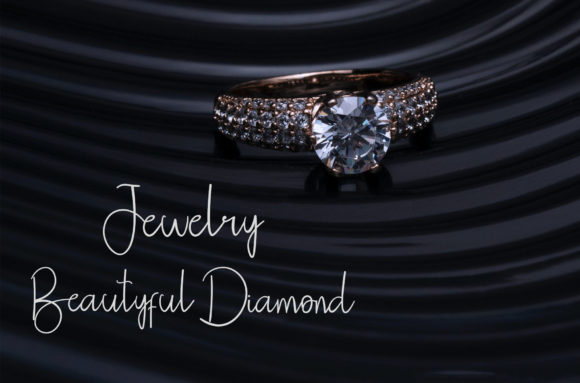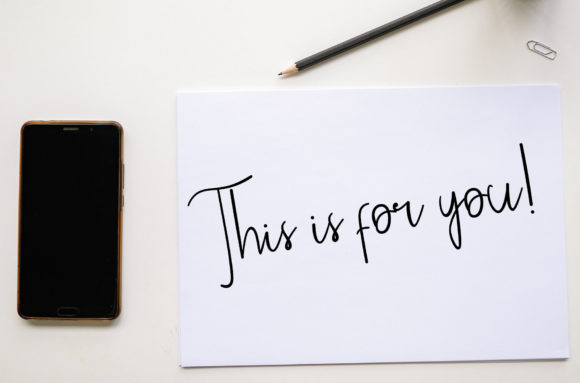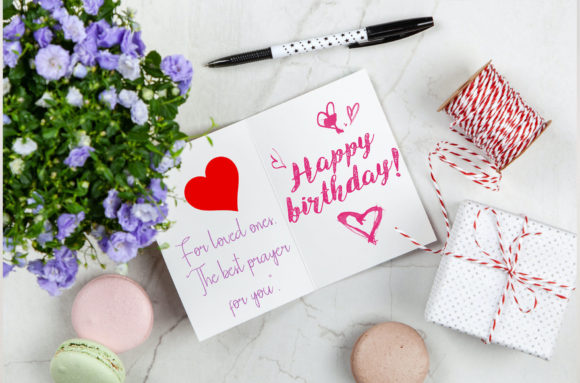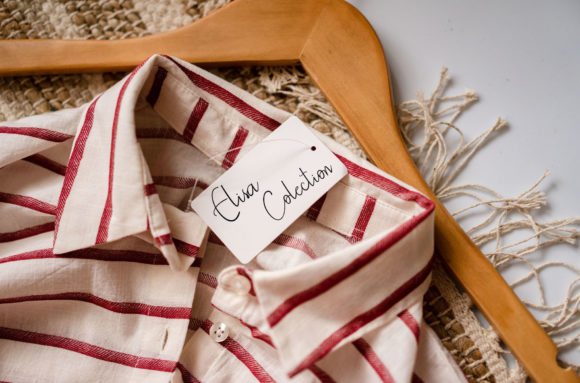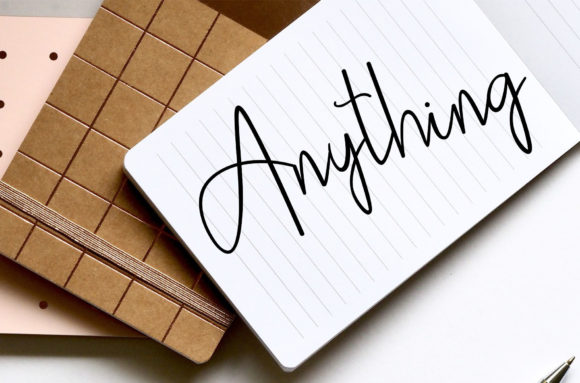
Introducing Anything Font: The Sweet Handwritten Font for Creative Minds
Are you a designer, crafter, or DIY enthusiast looking for a unique and versatile font to elevate your creative projects? Look no further than Anything Font, a sweet handwritten font designed with great care to produce exceptional outcomes. In this article, we’ll dive into the features, benefits, and uses of Anything Font, and explore how it can help you achieve your design goals.
The Story Behind Anything Font
Anything Font is a carefully crafted handwritten font that is designed to bring a touch of personality and whimsy to your designs. With a focus on legibility and readability, this font is perfect for a wide range of applications, from crafting and DIY projects to digital designs and marketing materials. The creator of Anything Font has poured their heart and soul into designing a font that is both beautiful and functional, making it an excellent addition to any designer’s toolkit.
Key Features of Anything Font
• Handwritten style: Anything Font boasts a charming handwritten style that adds a personal touch to your designs.
• Legible and readable: The font is designed to be easy to read, making it perfect for body text, headings, and titles.
• Versatile: Anything Font can be used for a wide range of applications, from digital designs to print materials.
Benefits of Using Anything Font
So, why choose Anything Font for your design projects? Here are just a few benefits of using this amazing font:
• Adds personality to your designs: Anything Font brings a touch of whimsy and personality to your designs, setting them apart from the crowd.
• Enhances creativity: The font’s unique style and charm can inspire creativity and help you think outside the box.
• Perfect for branding and marketing: Anything Font is ideal for creating eye-catching branding and marketing materials that grab attention.
• Great for crafting and DIY projects: The font is perfect for crafting and DIY enthusiasts who want to add a personal touch to their projects.
Use Cases for Anything Font
Anything Font is an incredibly versatile font that can be used for a wide range of applications, including:
• Digital designs: Use Anything Font to create stunning digital designs, such as social media graphics, blog posts, and website headers.
• Print materials: The font is perfect for print materials, including brochures, flyers, posters, and business cards.
• Crafting and DIY projects: Add a personal touch to your crafting and DIY projects, such as handmade cards, gift tags, and scrapbooking.
• Branding and marketing: Use Anything Font to create eye-catching branding and marketing materials, such as logos, packaging, and advertisements.
Tips for Using Anything Font
To get the most out of Anything Font, here are a few tips to keep in mind:
• Experiment with different sizes and colors: Play around with different font sizes and colors to find the perfect combination for your design.
• Pair with other fonts: Try pairing Anything Font with other fonts to create a unique and visually appealing design.
• Use for headings and titles: The font is perfect for headings and titles, adding a touch of personality and whimsy to your designs.
Font Name Anything Font
Author Sansana
In conclusion, Anything Font is a sweet handwritten font that is perfect for designers, crafters, and DIY enthusiasts looking to add a touch of personality and whimsy to their creative projects. With its legible and readable style, versatility, and ease of use, this font is an excellent addition to any designer’s toolkit. Whether you’re creating digital designs, print materials, or crafting and DIY projects, Anything Font is sure to inspire creativity and help you achieve your design goals.